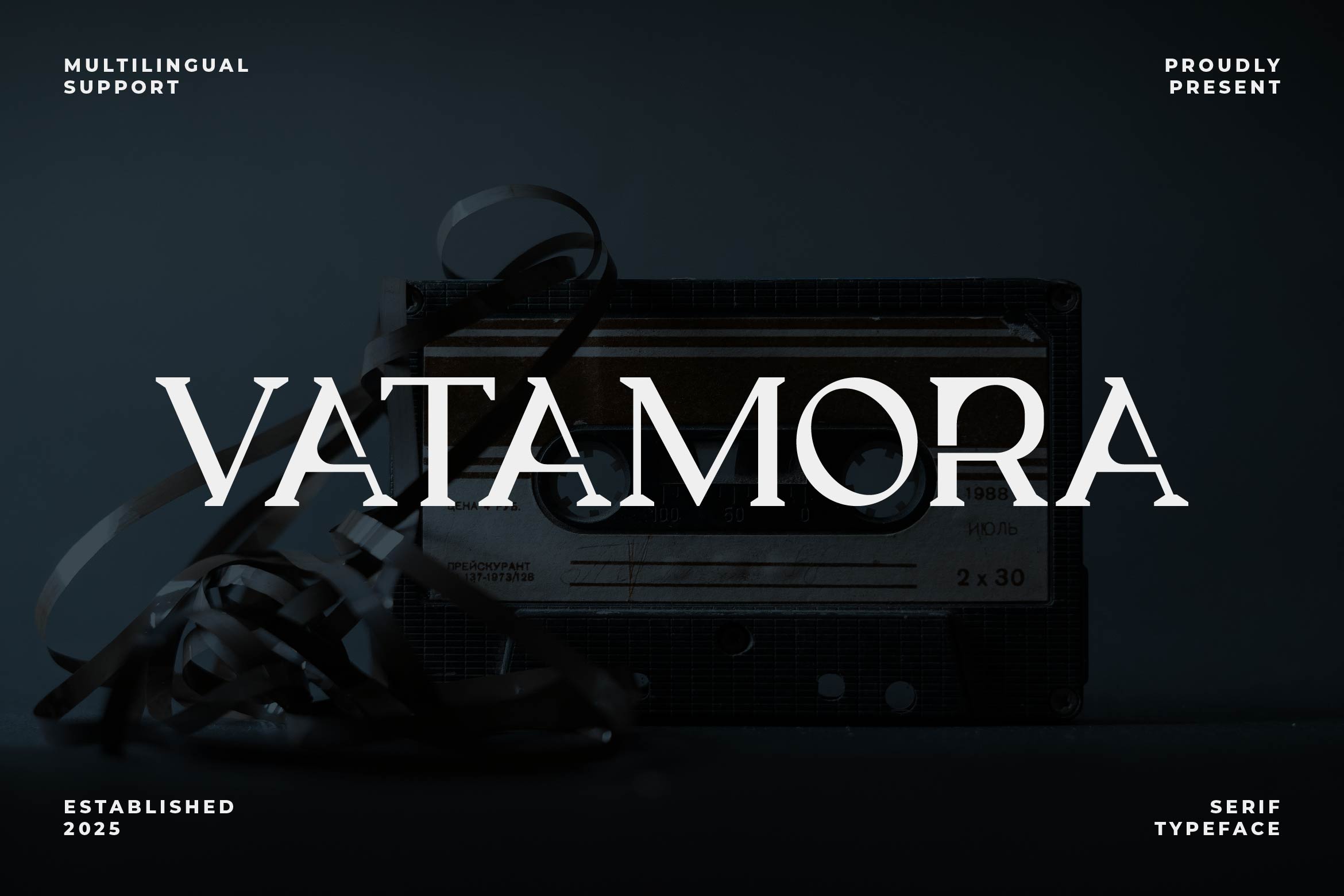
- Vatamora Premium Serif Font
Vatamora is a refined serif font that embodies simplicity and timeless sophistication. With its clean lines, subtle curves, and well-balanced proportions, Vatamora is perfect for branding, editorial layouts, wedding invitations, premium packaging, social media graphics, and elegant logo designs.
Its minimalist design ensures excellent readability while adding a touch of luxury to any creative project. Vatamora works beautifully in both large headlines and delicate text compositions, making it a versatile choice for fashion, lifestyle, and high-end brand identities.
The font includes uppercase and lowercase letters, numerals, punctuation, multilingual support, ligatures, and stylistic alternates for enhanced design flexibility.
Bring effortless elegance to your work with Vatamora — the minimalist serif font that blends modern clarity with classic sophistication.